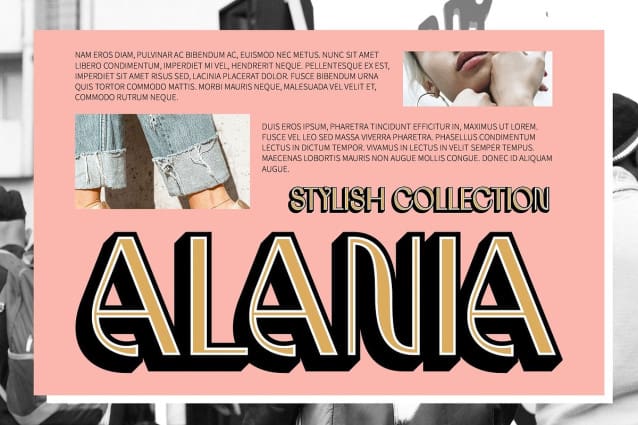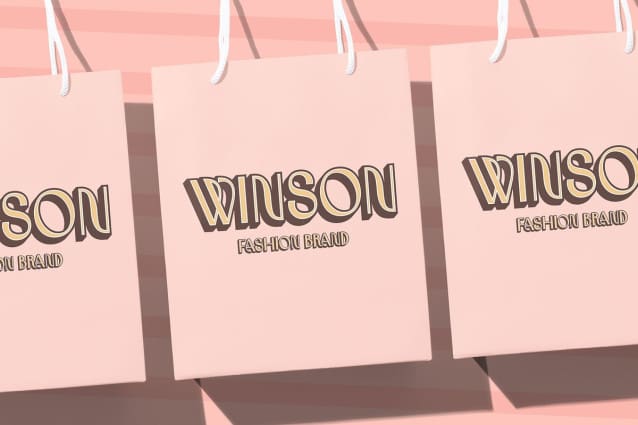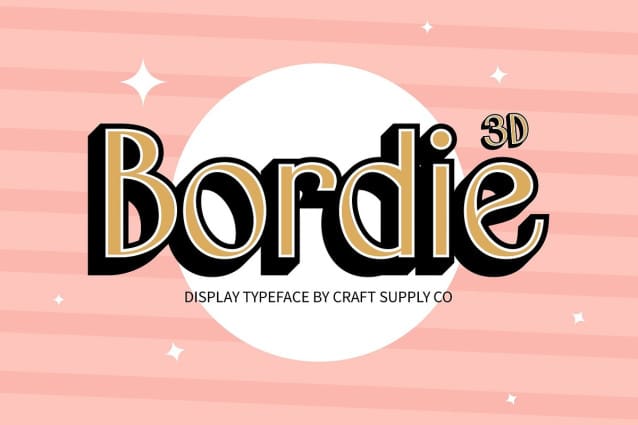
Bordie 3D Font
Bordie 3D Font is a contemporary sans-serif font that embodies clean, minimalistic shapes, perfect for those seeking a refined and sophisticated typeface. Its simple lines and streamlined design create a sense of elegance, making it ideal for professional and modern projects that require a clear, stylish impression.
Subtle 3D Effect for Added Depth What sets Bordie 3D apart is its subtle yet impactful 3D effect. The slight dimensionality enhances the font’s clean aesthetic, adding a sense of depth and visual interest without overwhelming its minimal design. This makes it a versatile choice for digital projects, branding, and editorial layouts that demand sophistication and clarity.
Ideal for Contemporary Branding and Professional Layouts Bordie 3D is designed with versatility in mind, making it a perfect choice for contemporary branding, website designs, and digital media. Its understated 3D effect ensures it stands out in professional layouts, headlines, and promotional materials, while still maintaining a high level of refinement and elegance.
A Balance of Modernity and Elegance With its minimalist design and modern 3D twist, Bordie 3D is ideal for projects that require a balance of sophistication and contemporary flair. The font’s clean lines and refined dimensionality make it the go-to choice for those seeking a modern yet polished look.